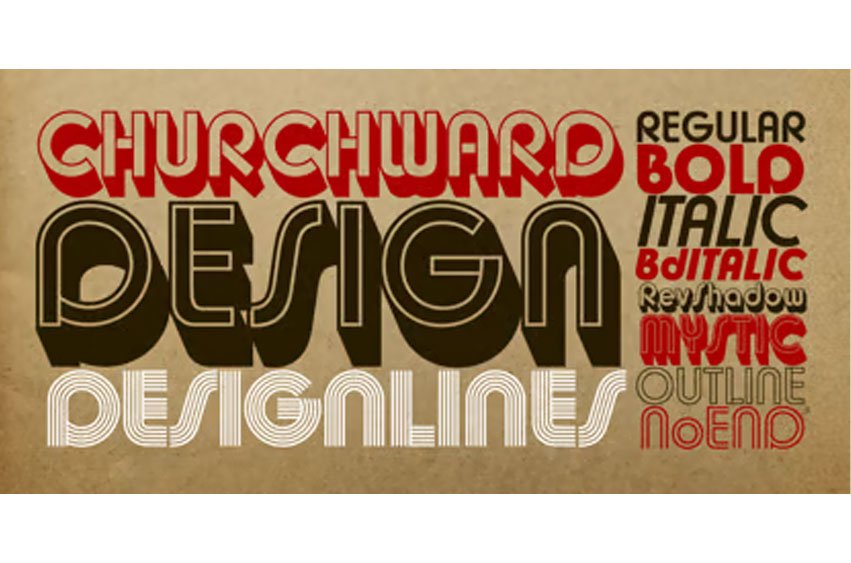
Churchward Design Font
Churchward Design Font family was created by the late Joseph Churchward.
The family now consists of nine unique fonts, all based on a classic, straightforward geometric glyph forms, with the addition of Churchward’s quirky details.
The five treated fonts are classic 70’s style poster typefaces.